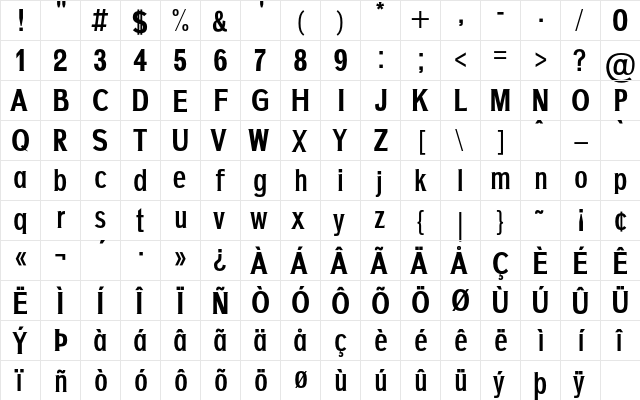
AGAJDA Extra-Bold Font Preview
AGAJDA Extra-Bold
Design Context for AGAJDA Typeface
AGAJDA takes a measured approach to typography — its balanced proportions and neutral character make it a reliable workhorse for both digital and print work. The heavy weight commands attention and anchors typographic hierarchies.